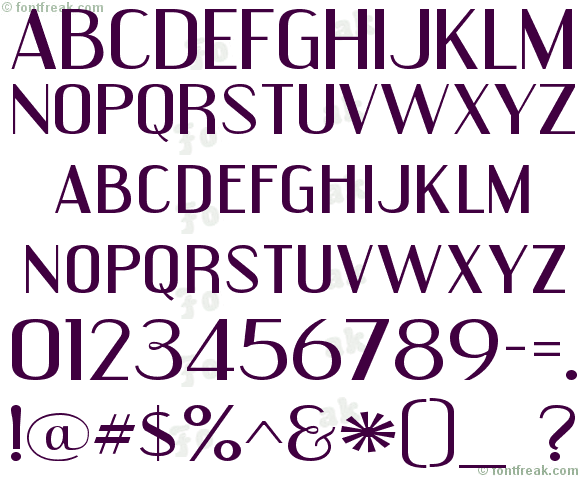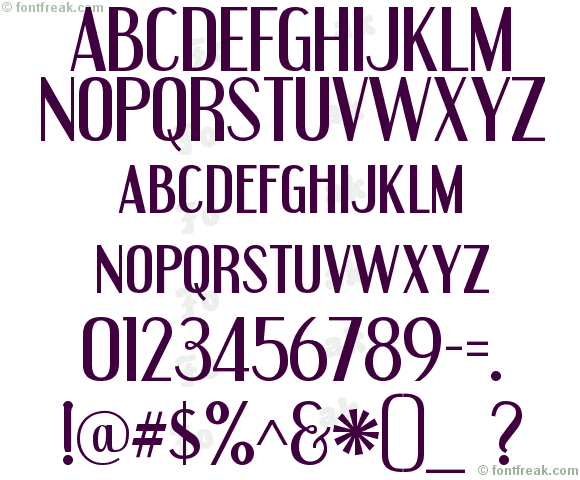
Engebrechtre, designed by Ray Larabie, is a striking display font that blends modern aesthetics with a hint of retro charm. This freeware font, released in 2000 and updated in 2004, features bold, clean lines that create a strong visual impact. Its unique style is characterized by a medium stroke weight and minimal contrast, making it highly legible and versatile for various applications. The spacing is well-balanced, allowing for natural readability, while the slightly rounded edges add a touch of friendliness to its overall look.
The Engebrechtre font is perfect for a diverse range of use cases. It excels in creating eye-catching movie posters, where its bold presence can draw attention to the title and main star. Additionally, it works wonderfully for restaurant menus, providing a modern yet approachable feel that invites diners to explore the offerings. Wedding invitations can benefit from the font's elegance, as it lends a sophisticated touch to the event details. Graphic designers can also leverage this font for branding projects, ensuring their designs stand out in a crowded market. Content creators will find it useful for social media graphics and promotional materials, enhancing engagement with its unique style.
Targeting graphic designers, small business owners, and content creators, Engebrechtre offers a versatile solution for anyone looking to make a statement with their typography. Its distinctive character and adaptability make it a valuable addition to any designer's toolkit.
What truly sets the Engebrechtre font apart is its balance of boldness and approachability. Whether used in large headlines or smaller text, it maintains clarity and charm, making it an excellent choice for both digital and print media. For those seeking to elevate their designs, the Engebrechtre font free download is a fantastic opportunity to explore a unique typeface that enhances visual storytelling.